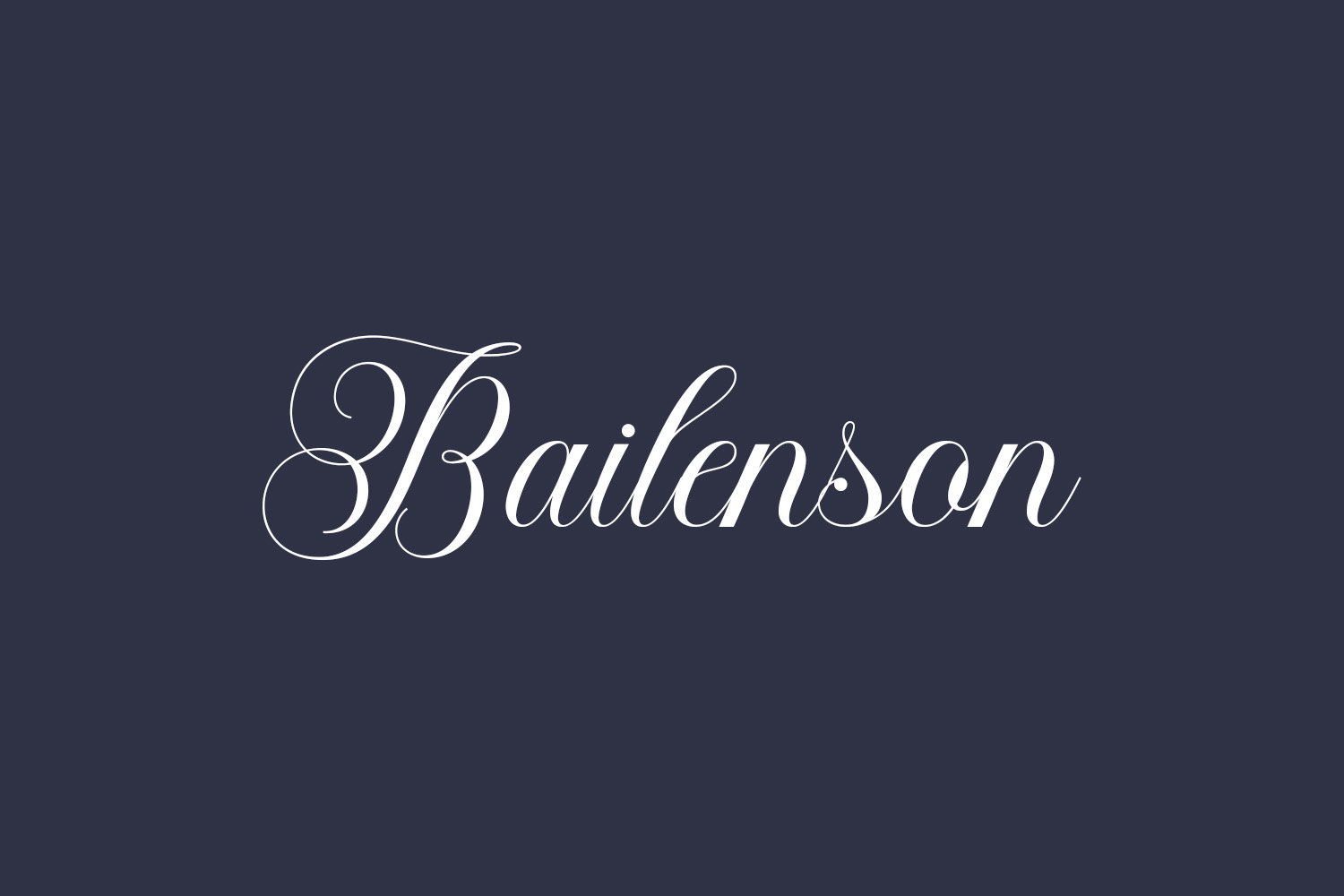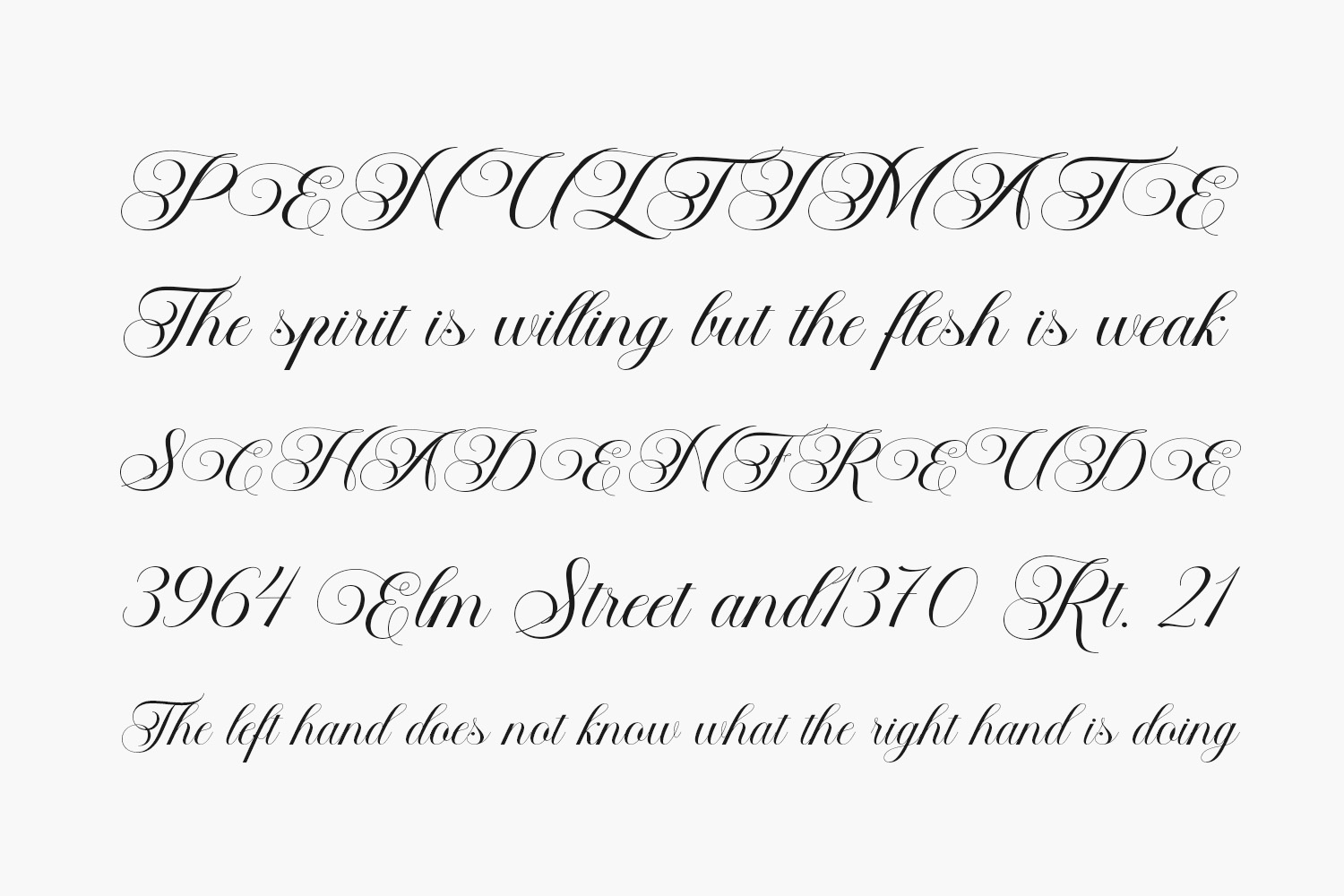
Bailenson Free Font is a calligraphic font exuding classic charm and a refined aesthetic, drawing inspiration from the elegant script of Italian women and the timeless allure of ancient manuscripts. Painstakingly crafted to harmonize seamlessly, it’s an ideal choice for enhancing wedding favors, adorning book covers, embellishing greeting cards, shaping distinctive logos, elevating branding, adding sophistication to business cards and certificates, and is well-suited for any design endeavor that demands a touch of classic, formal, or luxury appeal. Bailenson Free Font is free for personal use only. Please purchase the full version for commercial use.